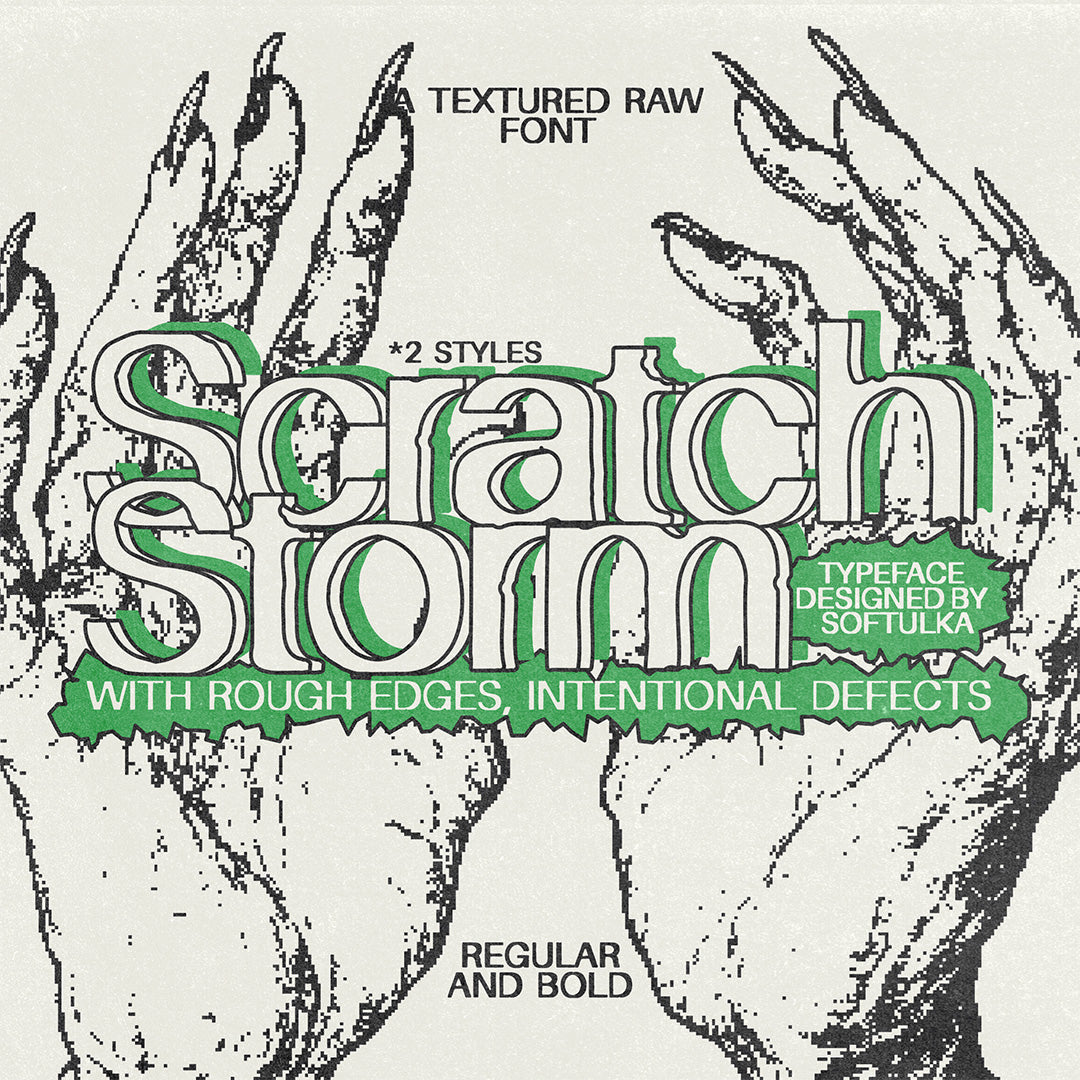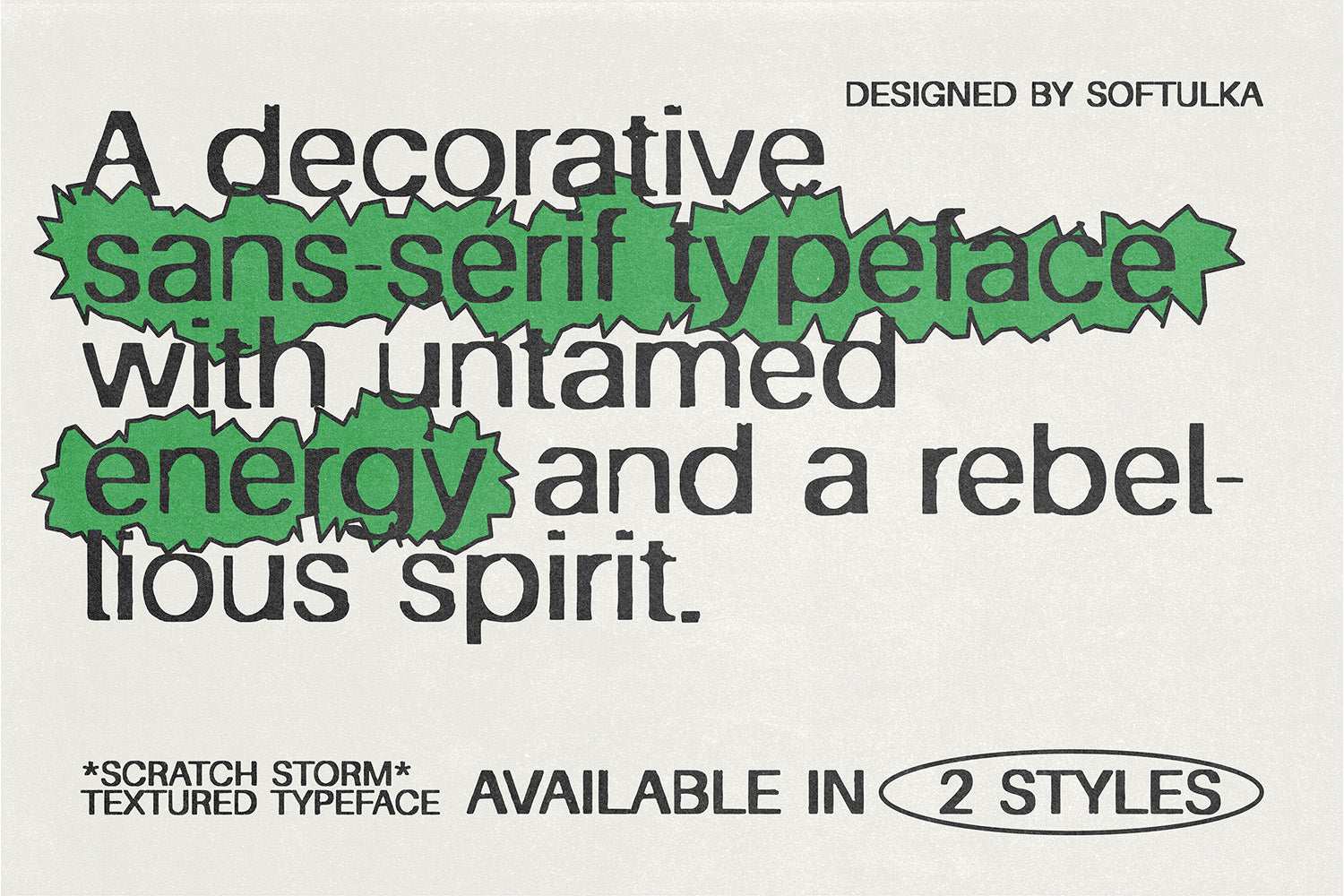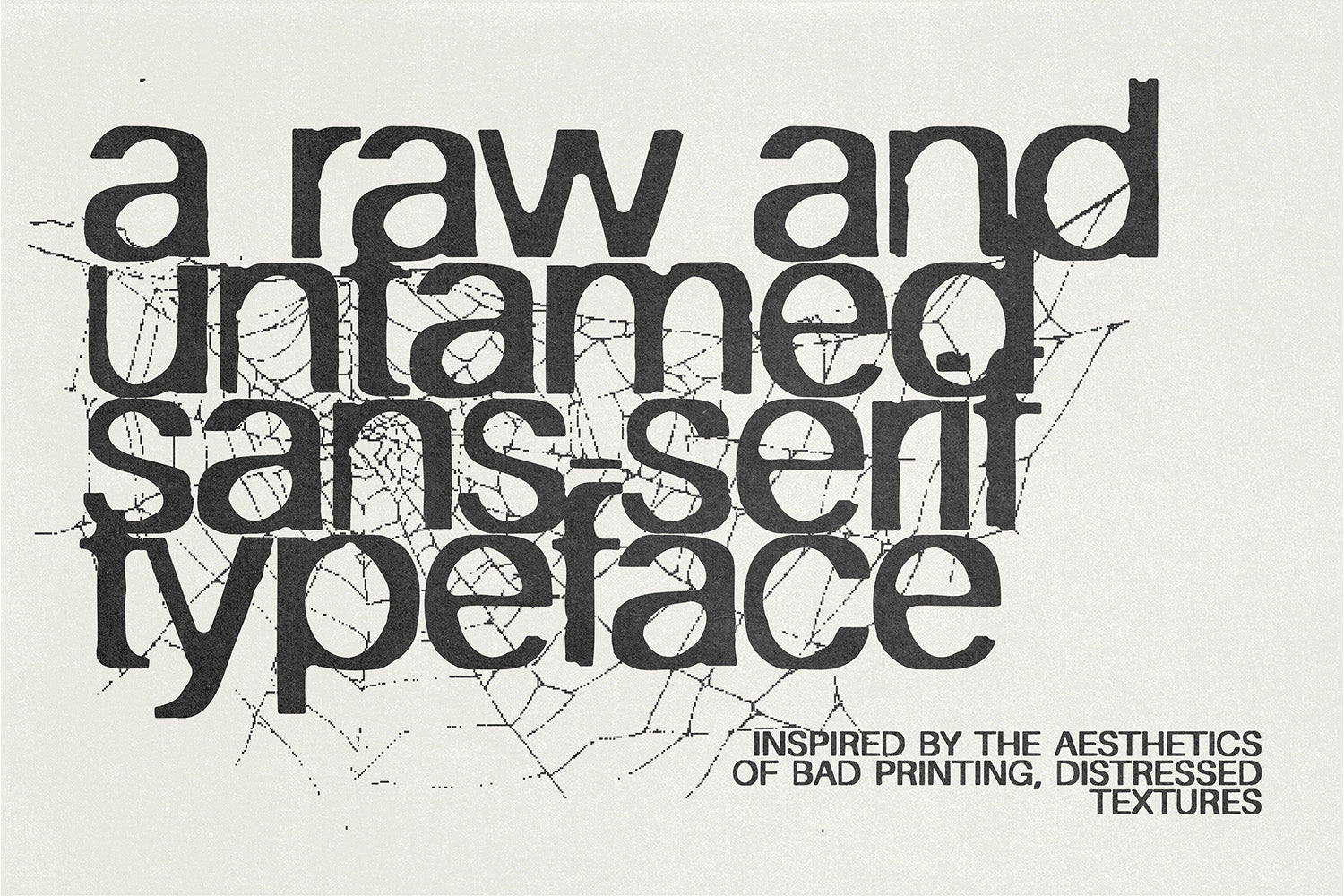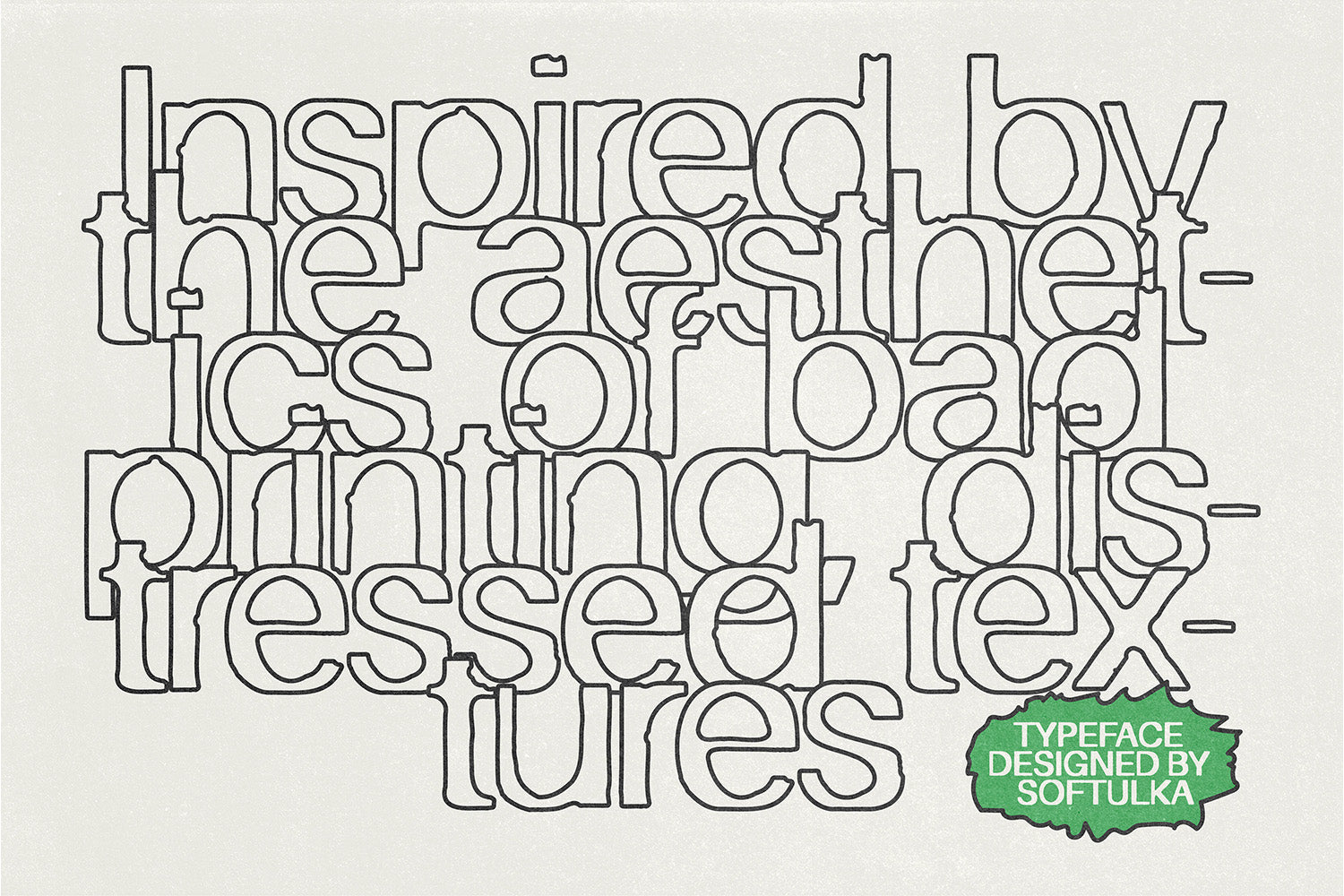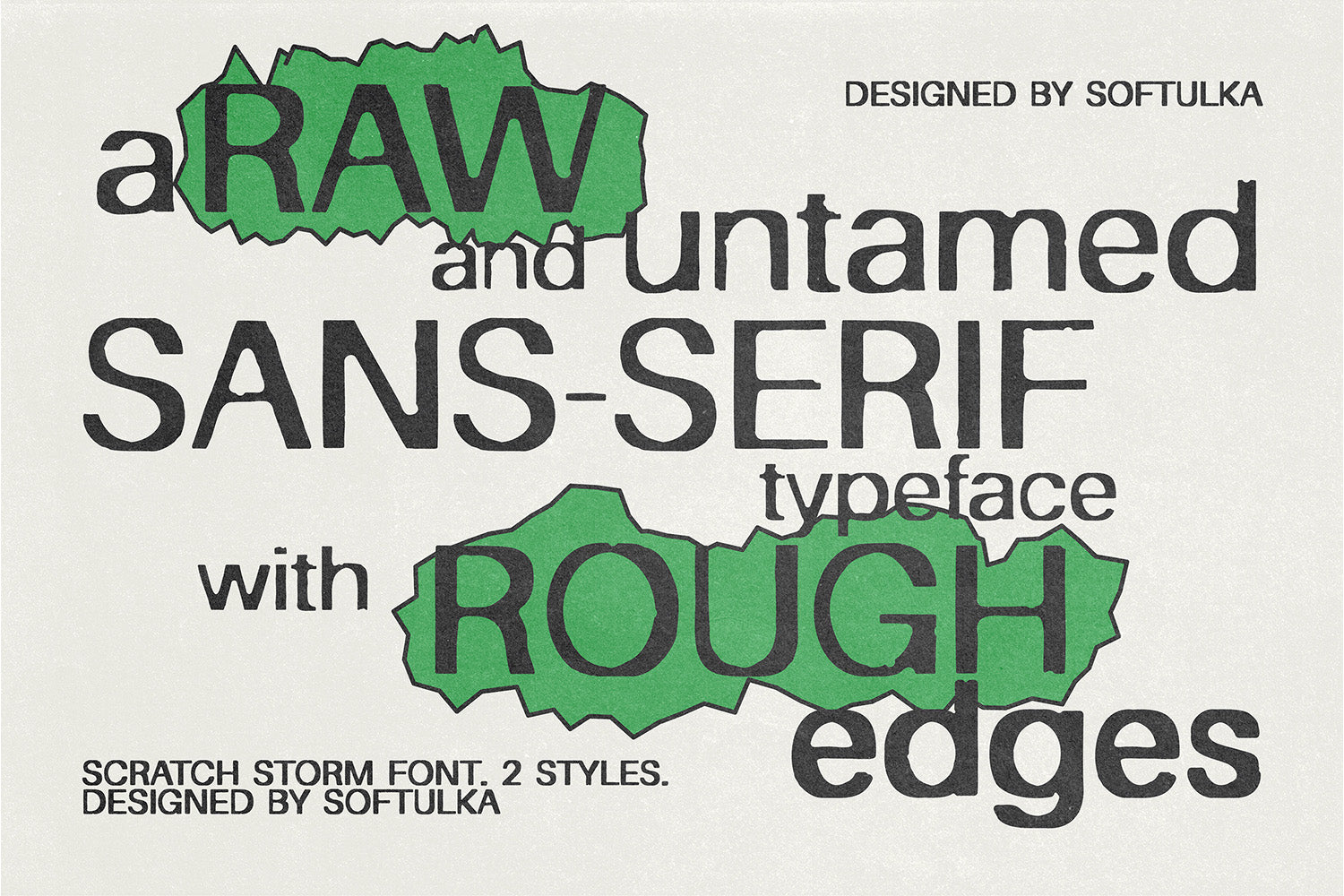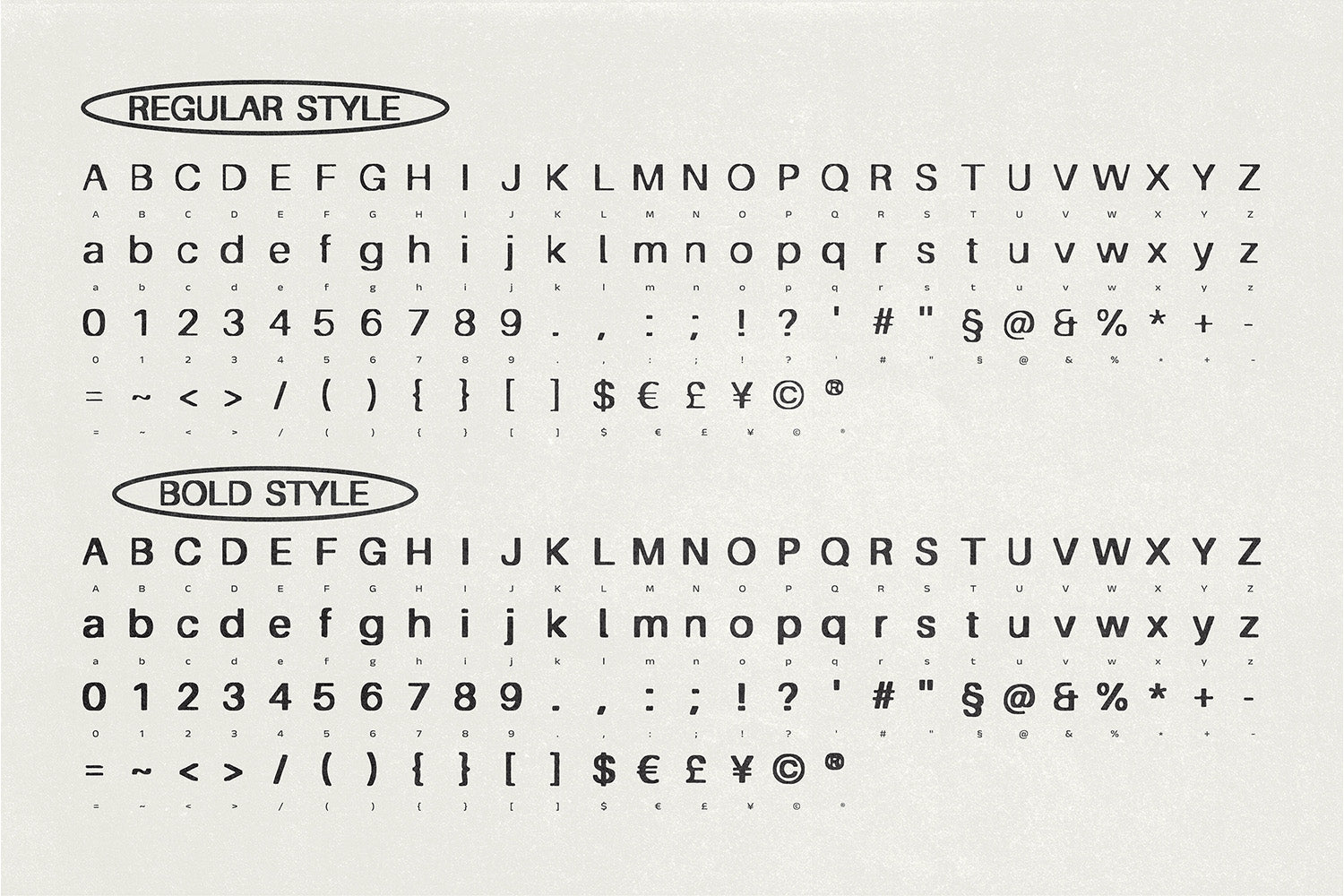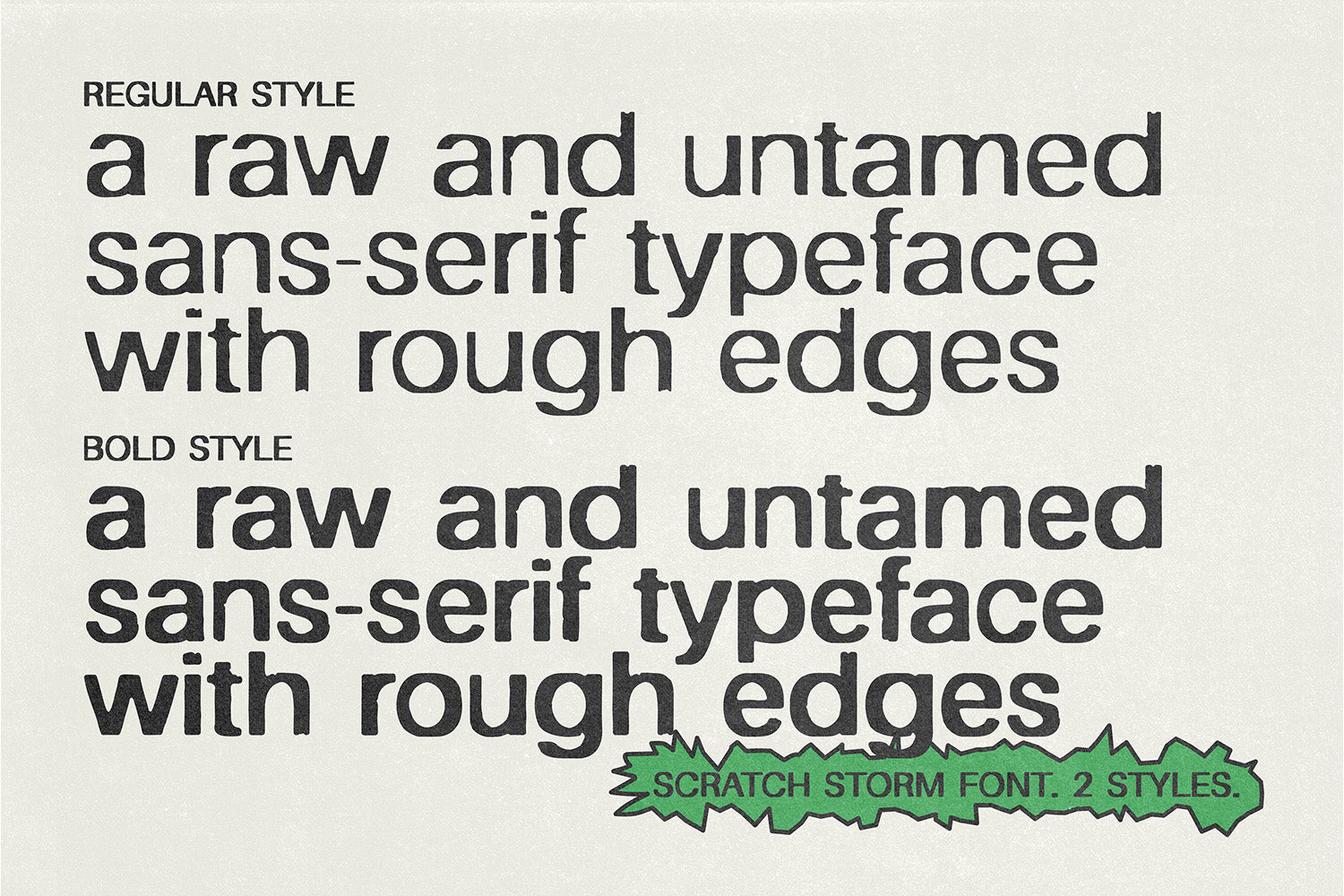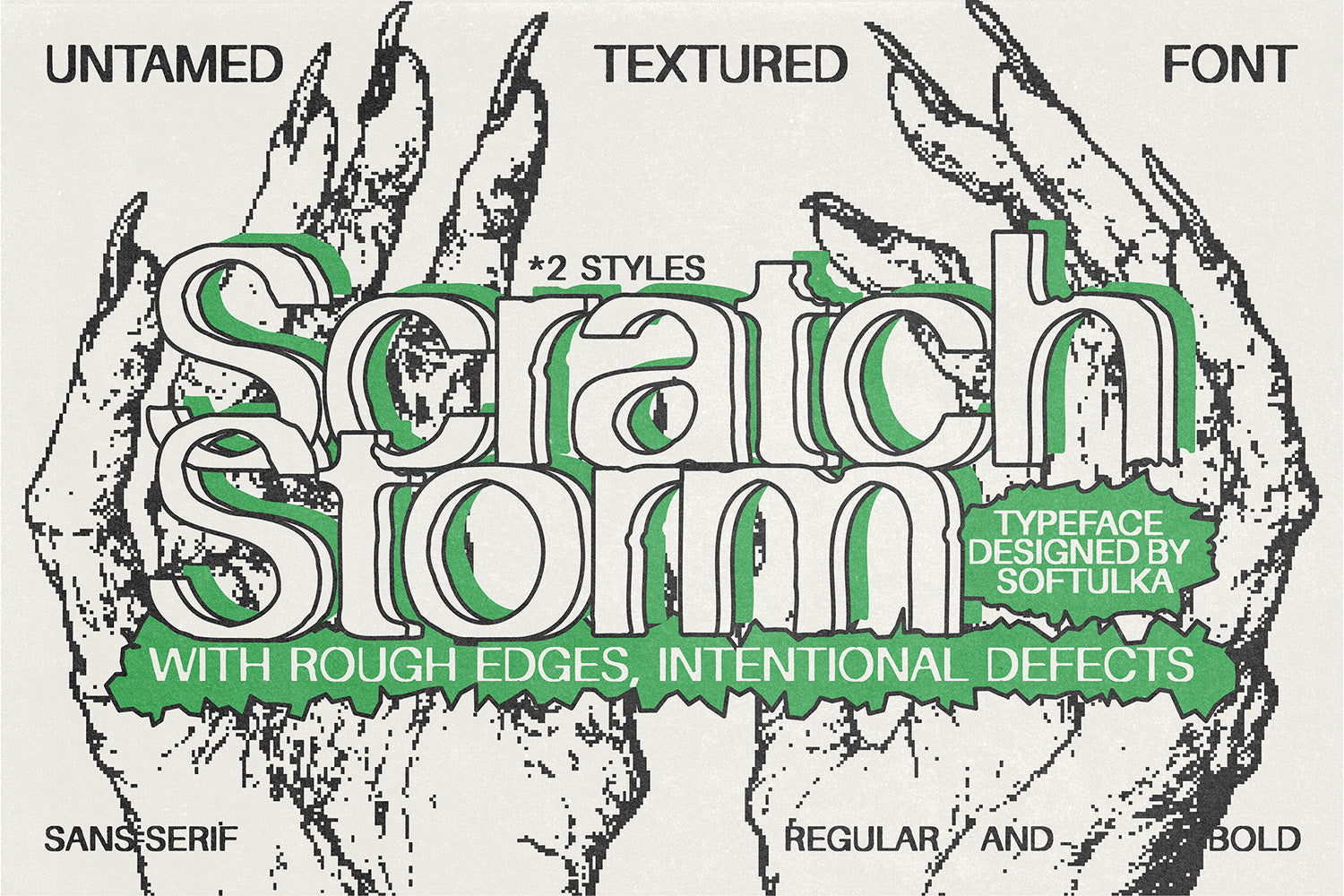
Scratch Storm Rebellious Textured Typeface
Scratch Storm is a raw and untamed sans-serif typeface with rough edges, intentional defects, and a bold personality. Font is available in 2 styles: Regular and Bold. Inspired by the aesthetics of bad printing, distressed textures, and DIY punk culture, this hand-drawn font embraces imperfection as an art form. Its organic, playful, and chaotic energy makes it perfect for edgy branding, rebellious posters, album covers, streetwear, zines, and experimental design projects.